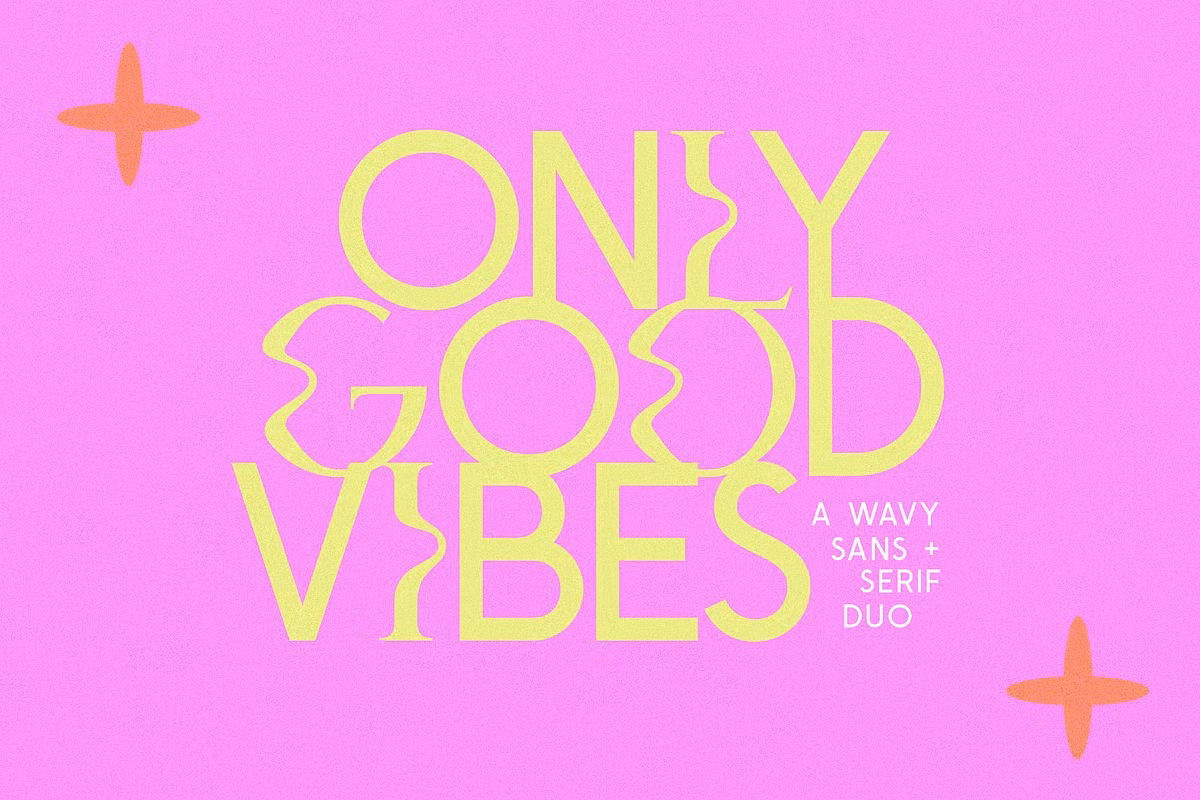
Only Good Vibes | Wavy Serif Font Free Download is a bold and playful typeface that radiates positivity and retro charm. Please note: you must purchase this font for commercial use, but you can test it through a free download. With its unique wavy letterforms and vintage-inspired curves, this font is perfect for posters, groovy branding, social media graphics, product packaging, and anything that needs a splash of fun and feel-good energy.
Designed to stand out, Only Good Vibes | Wavy Serif Font Free Download brings a fresh, funky twist to classic serif styling. Whether you're designing for a lifestyle brand or a retro-themed event, this font adds character and good vibes to every project. Fully compatible with Adobe Illustrator, Photoshop, Canva, and more. Download it today for personal use and let your designs shine with the upbeat personality of Only Good Vibes.